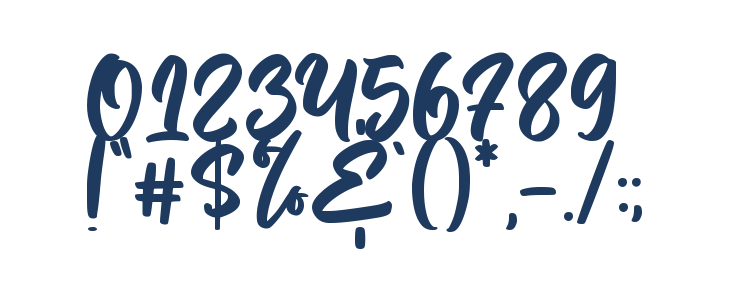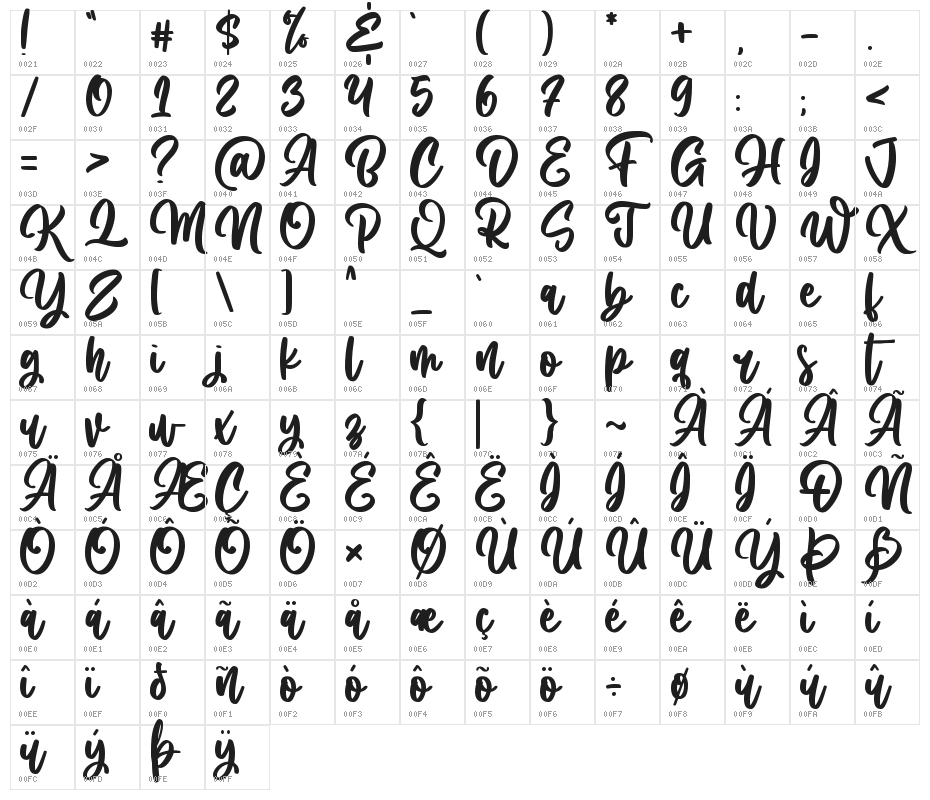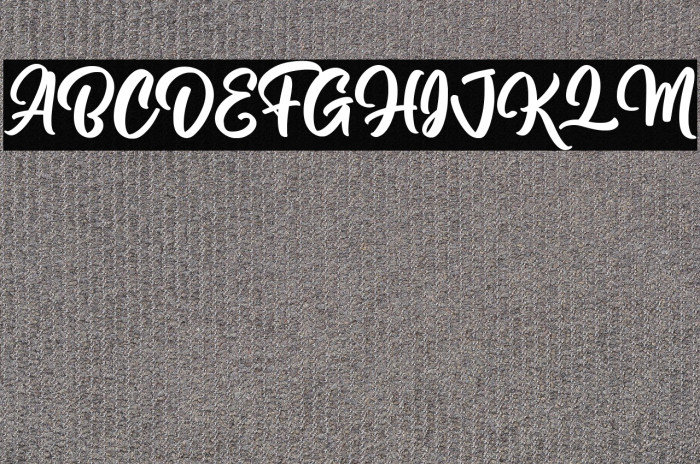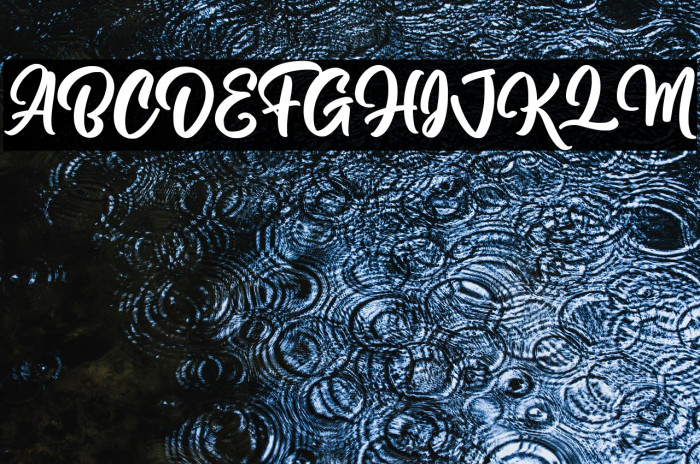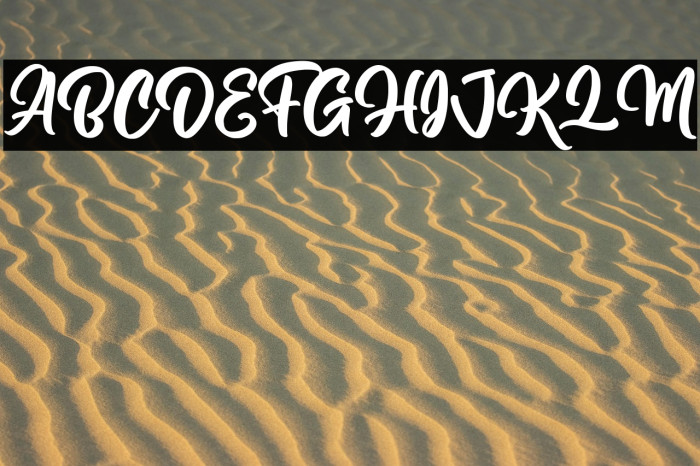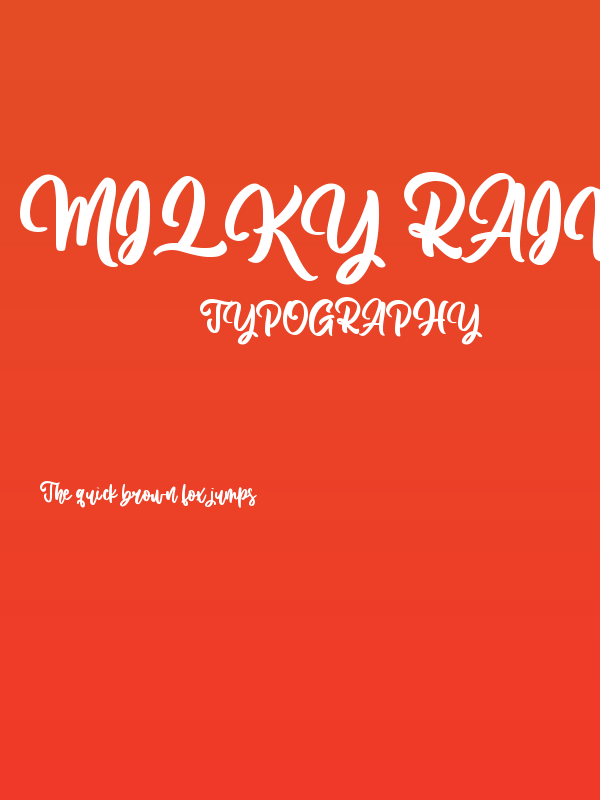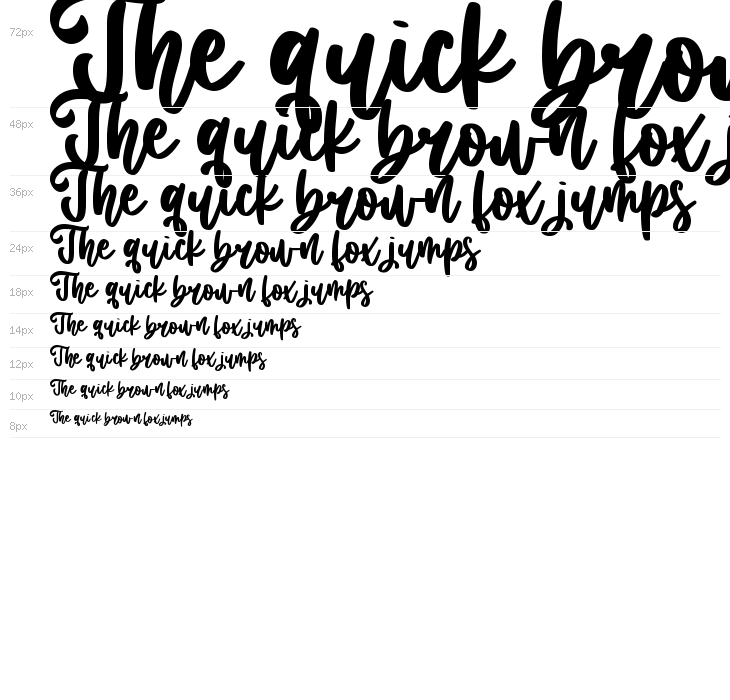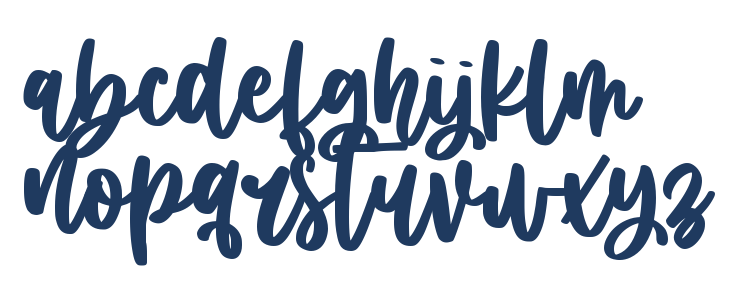
Milky Rainbow Font
Milky Rainbow Description
This font features a bold and playful script style with a handwritten feel. The letters are connected with smooth, flowing strokes, giving it a lively and dynamic appearance. The uppercase and lowercase characters maintain a consistent style, with rounded edges and a slight slant, enhancing its casual and friendly vibe. The numbers and special characters are equally expressive, maintaining the same boldness and fluidity. This font is perfect for projects that require a personal touch or a fun, informal look.